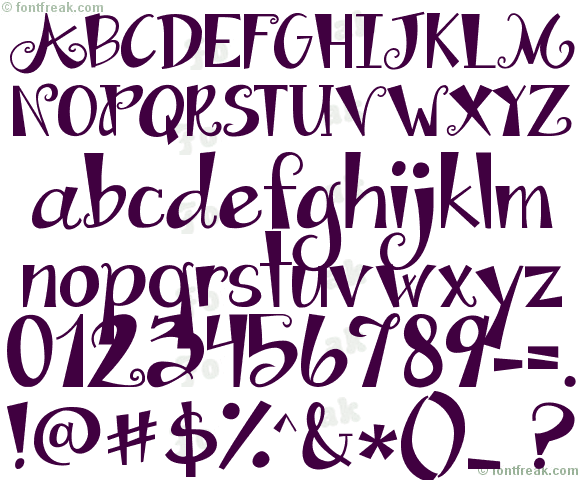
Janda Apple Cobbler Solid is a delightful handwritten font designed by Kimberly Geswein, categorized under the script style. This font exudes a playful yet elegant charm, making it a versatile choice for various design projects. Characterized by its smooth, flowing strokes and whimsical curves, it creates a warm and inviting aesthetic. The stroke weight is predominantly consistent, offering a balanced and legible appearance, while the spacing allows for easy readability, making it suitable for both display and text use.
This font shines in several specific applications. It is an excellent choice for wedding invitations, where its romantic flair can complement formal themes beautifully. Additionally, Janda Apple Cobbler Solid works wonderfully for greeting cards, providing a personal touch to messages for birthdays, holidays, and special occasions. Its unique character also makes it a fantastic option for restaurant menus, adding a friendly and approachable vibe that can enhance the dining experience. Furthermore, small business owners can leverage this font for branding materials, such as logos and promotional content, to capture attention and convey a sense of creativity.
The target audience for this font includes graphic designers looking for a unique typeface to enhance their projects, small business owners aiming to establish a memorable brand identity, and content creators who desire a personal touch in their written communications.
What sets Janda Apple Cobbler Solid apart is its ability to blend playfulness with sophistication. Its distinct character not only adds charm but also ensures that it stands out in any design context. For those interested in exploring this font, a Janda Apple Cobbler Solid font free download is readily available, making it accessible for creative projects.